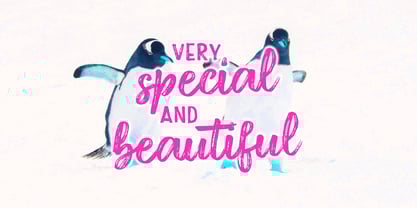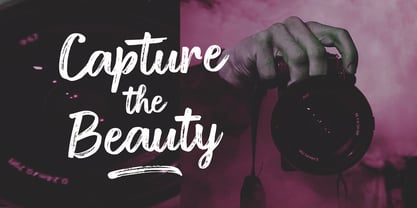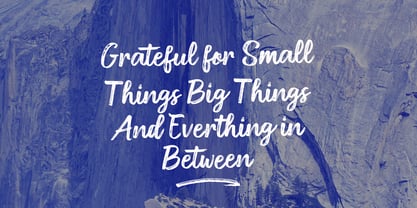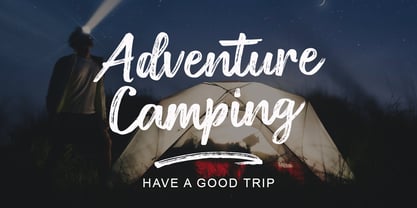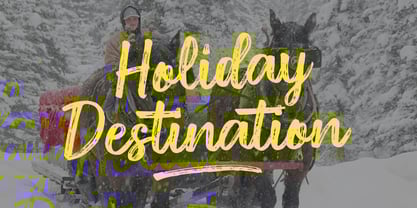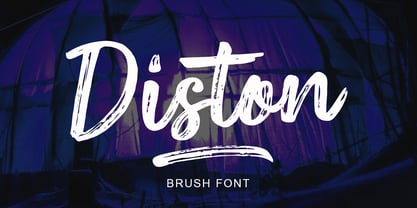
Diston Brush
by Stripes Studio
The Diston Brush Font Family was designed by Yur Lis and published by Stripes Studio. Diston Brush contains 2 styles. More about this family
Diston a new font that is brushed is very attractive with a natural, detailed and perfect texture, also has an additional Diston Underlines.
Perfect for brand projects, logos, product packaging, posters, invitations, greeting cards, news, blogs, everything including personal charm etc.